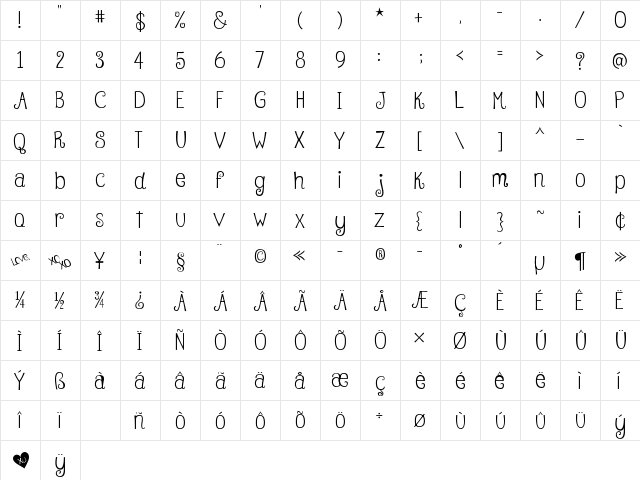
Betty Regular Font Preview
Betty Regular
Design Context for Betty Typeface
Betty is a composed and adaptable typeface that performs quietly and consistently across a wide range of design contexts.